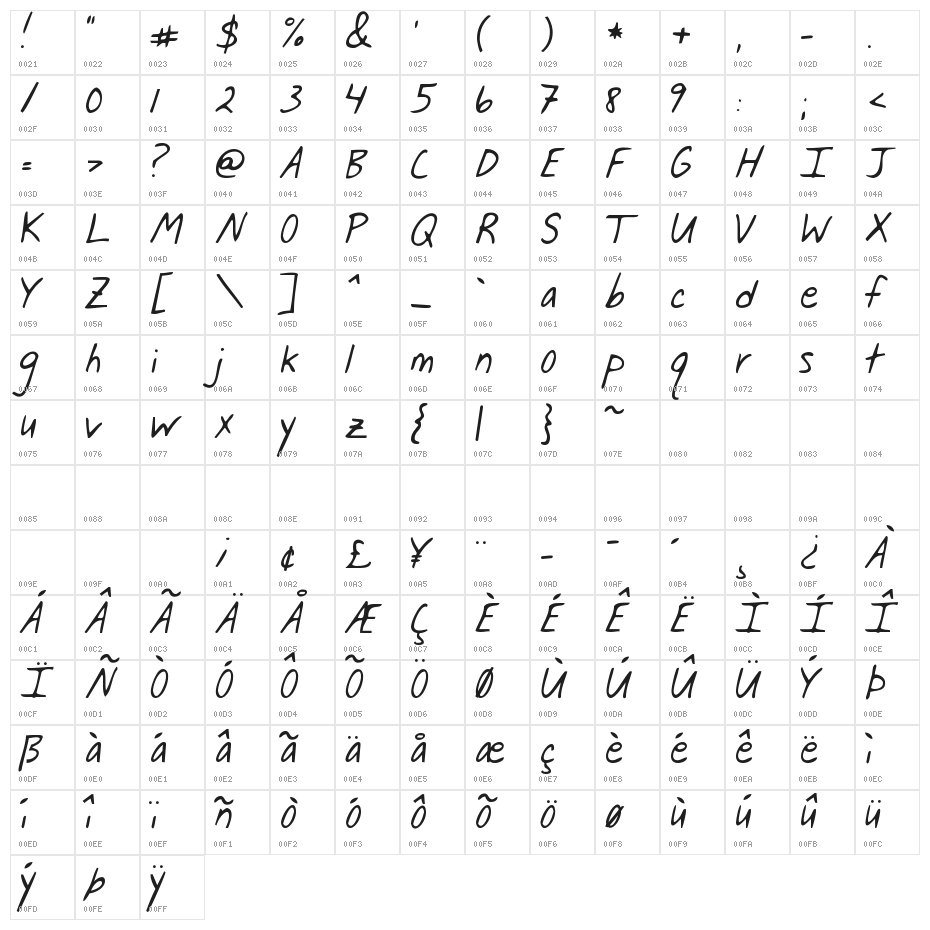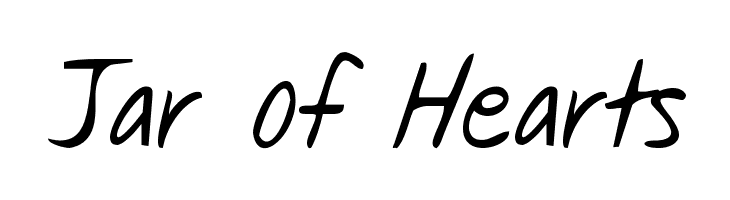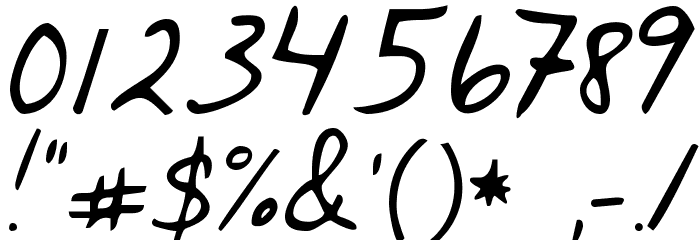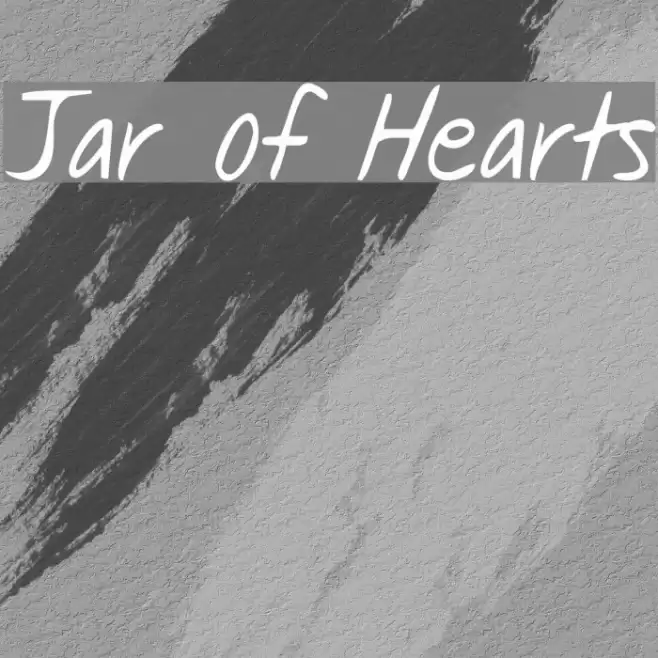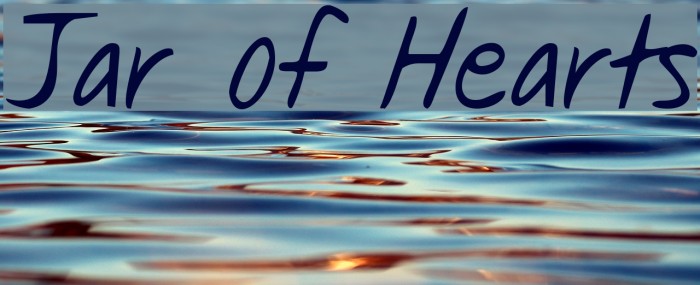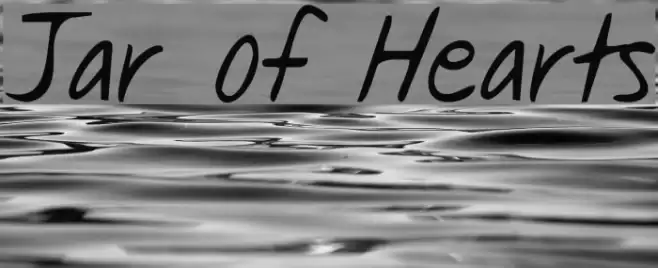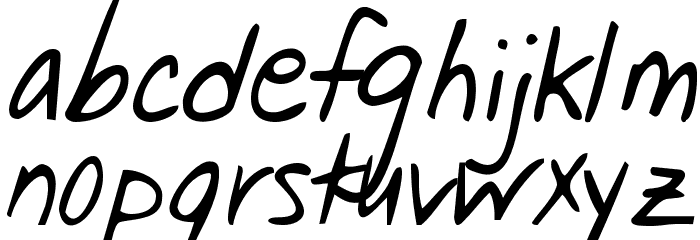
Jar of Hearts Font
This font features a playful, handwritten style with a casual and informal appearance. The letters are slightly slanted, giving it a dynamic and lively feel. The strokes are consistent in width, providing a uniform look across all characters. Uppercase and lowercase letters maintain a cohesive style, with rounded edges and smooth curves. The numbers and special characters follow the same aesthetic, ensuring a harmonious overall design. This font exudes a friendly and approachable vibe, making it suitable for various creative applications.
| Use Case | Headlines, Invitations, Personal projects |
| Proposed Projects | Ideal for greeting cards, invitations, personal branding, and creative projects requiring a friendly touch. |